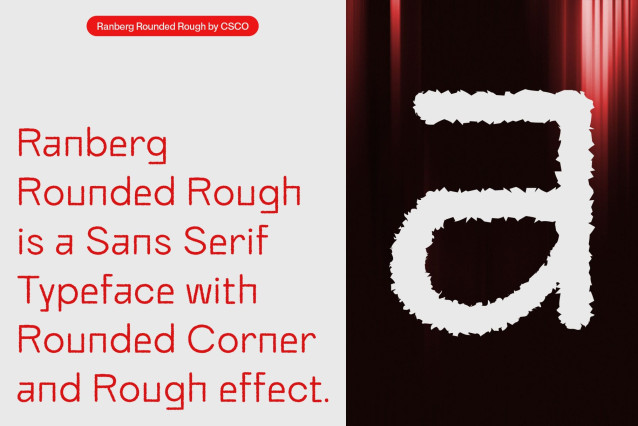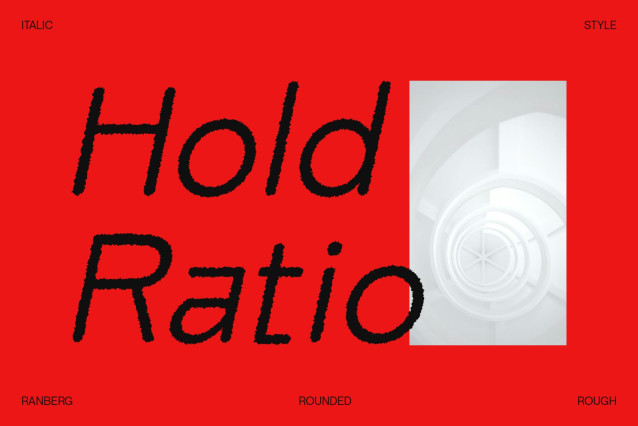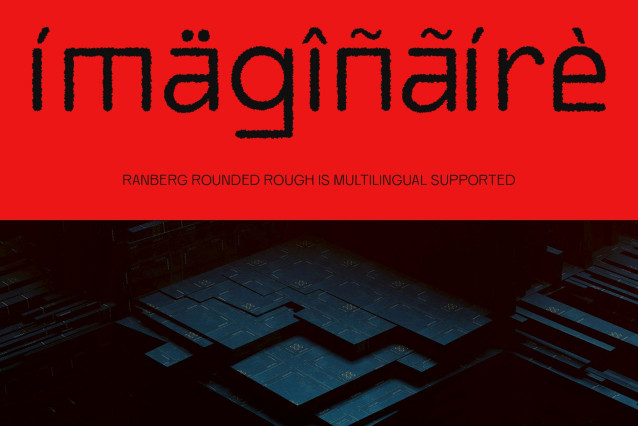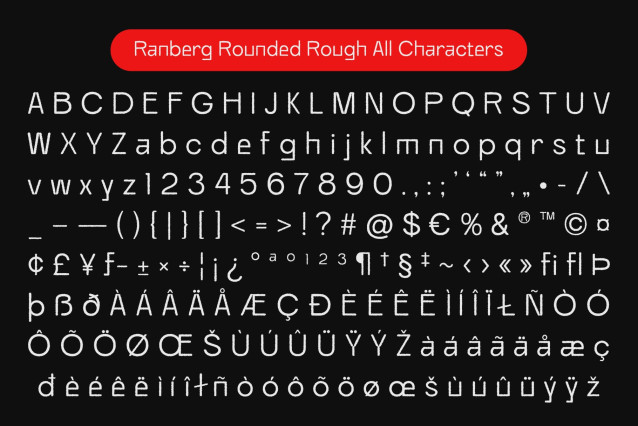
Ranberg Rounded Rough Font
Ranberg Rounded Rough Font is a modern sans-serif font built on a clean geometric-grotesque structure, offering balanced proportions and high legibility. Its minimalist letterforms maintain a sleek and contemporary tone, suitable for both digital and print environments.